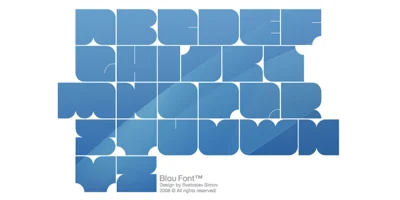
Blou Font
Searching for a fresh, contemporary typeface that adds personality and style? Blou Font is the perfect choice. Its sleek, geometric design makes it ideal for branding, web design, headlines, and creative projects that need a bold yet approachable look.
Whether you’re crafting logos, posters, or digital content, Blou Font adapts seamlessly to your creative vision. Its versatility and trendy style make it a favorite among designers who want their work to stand out.